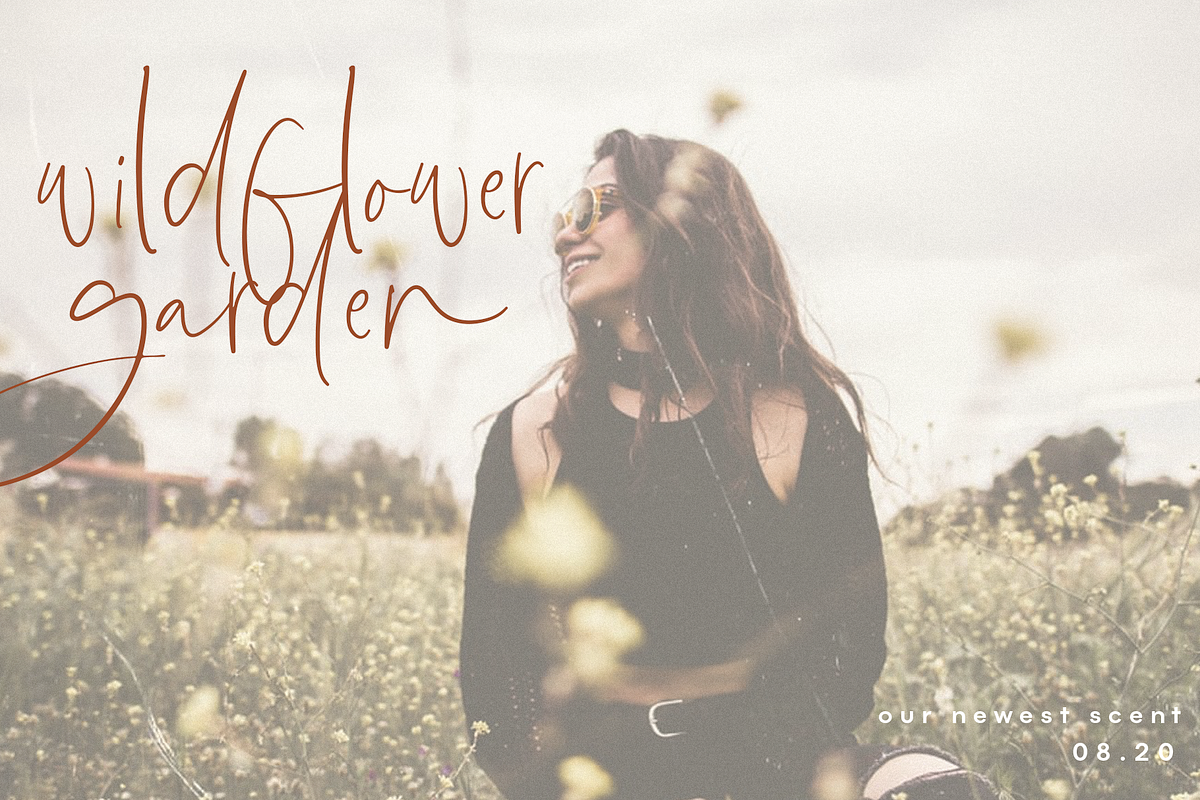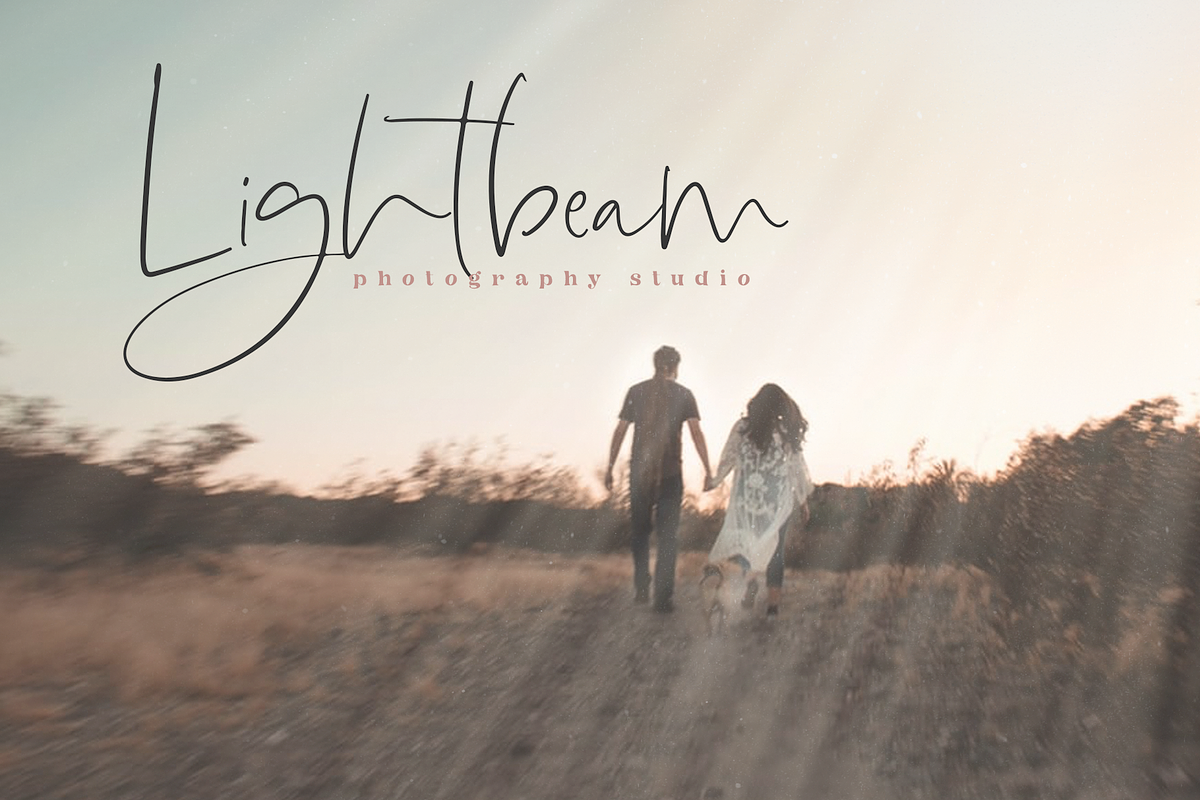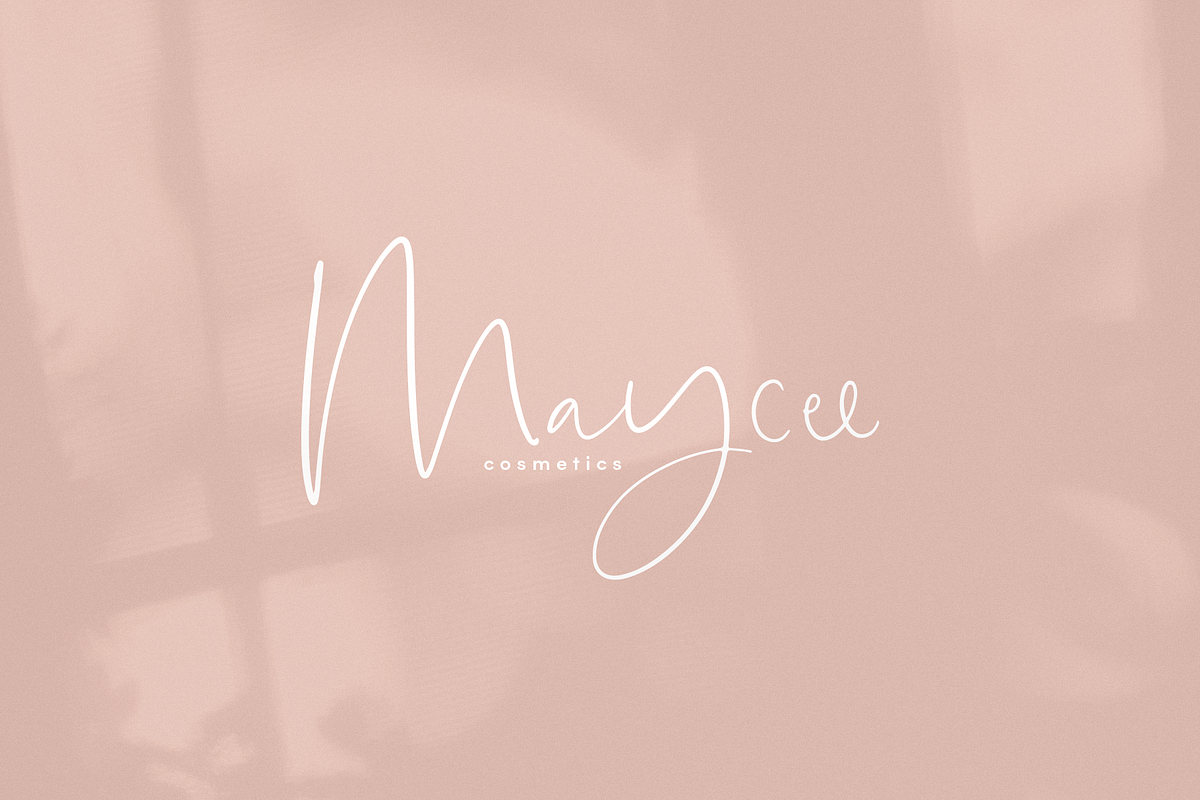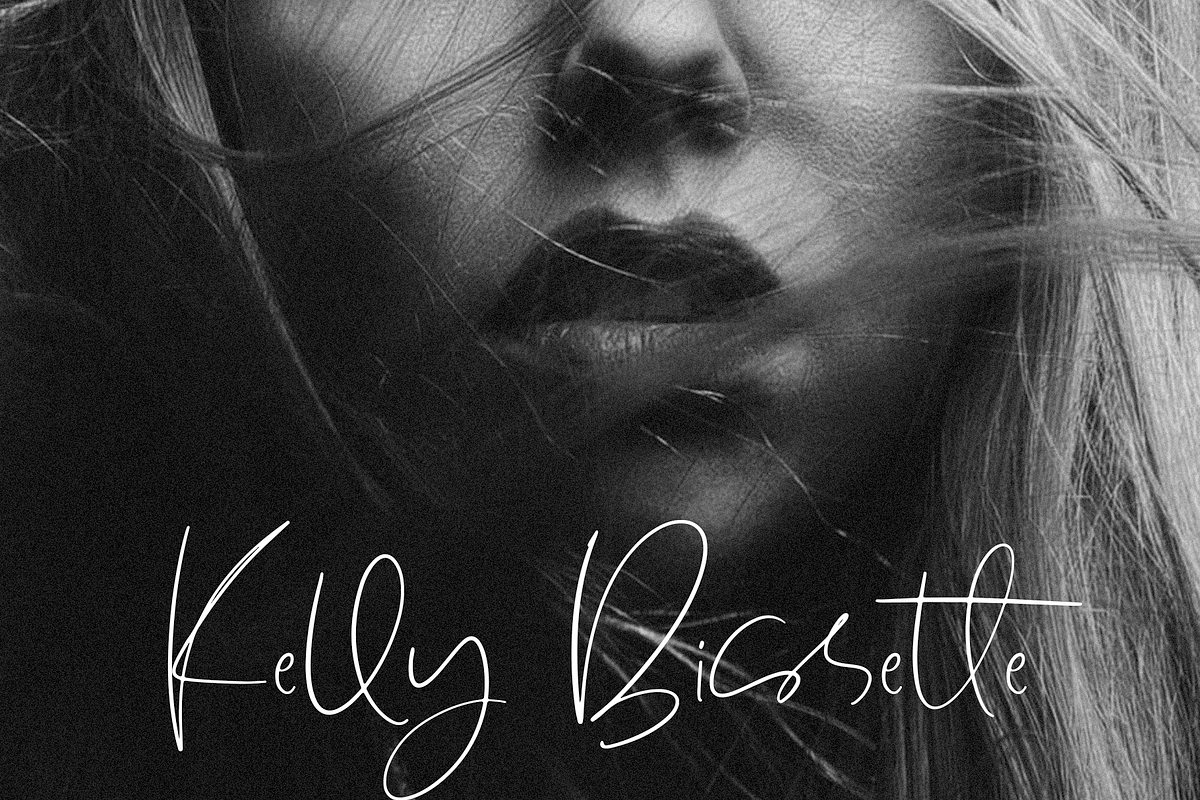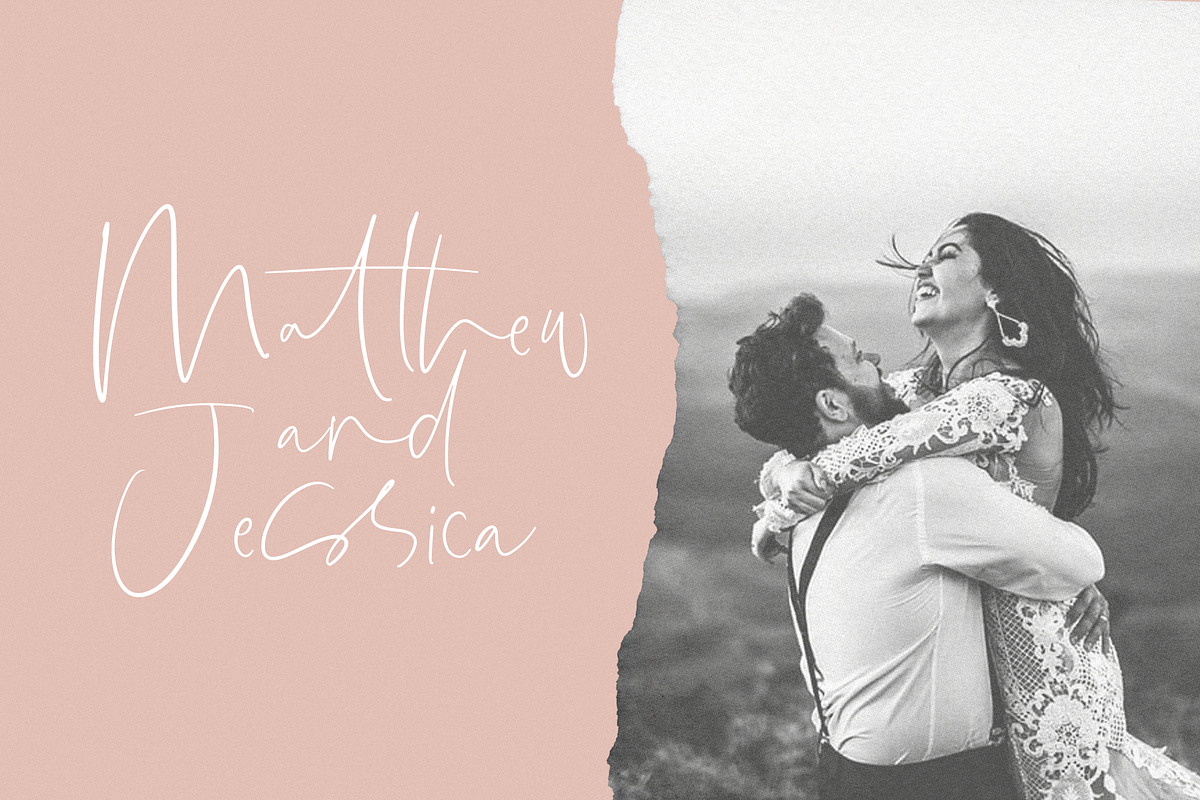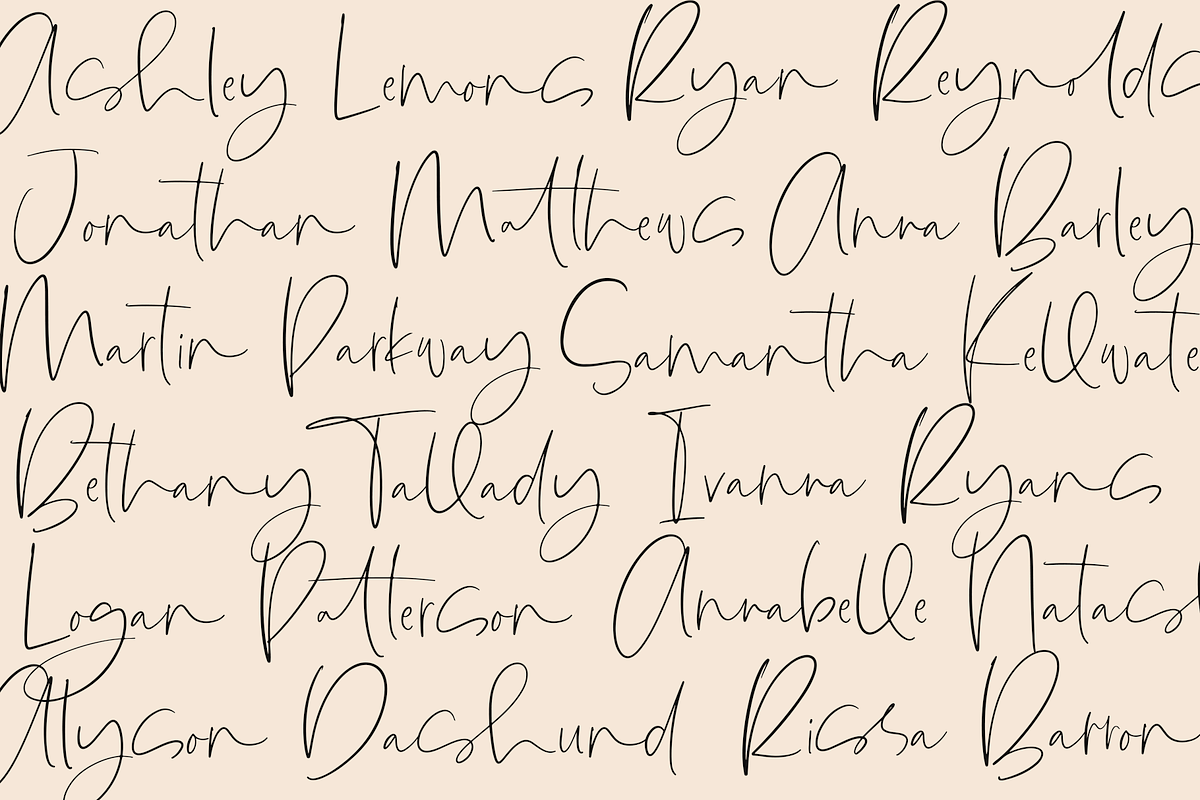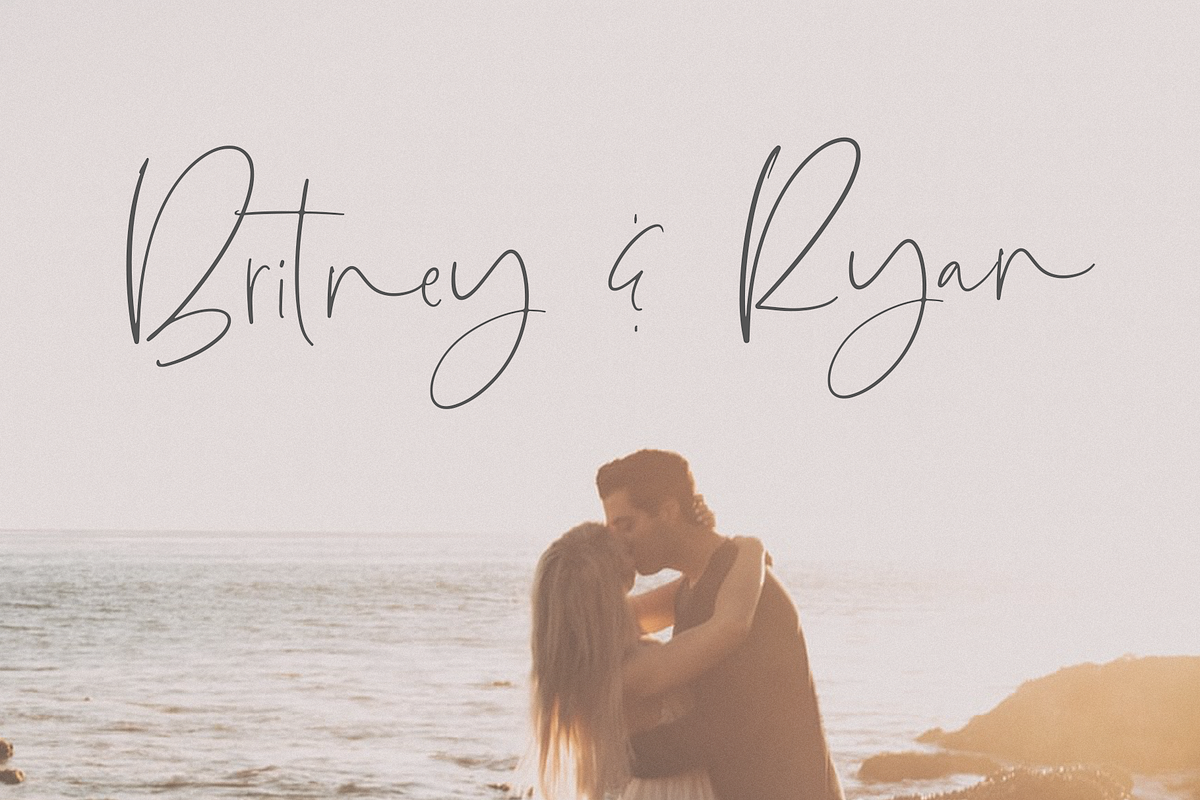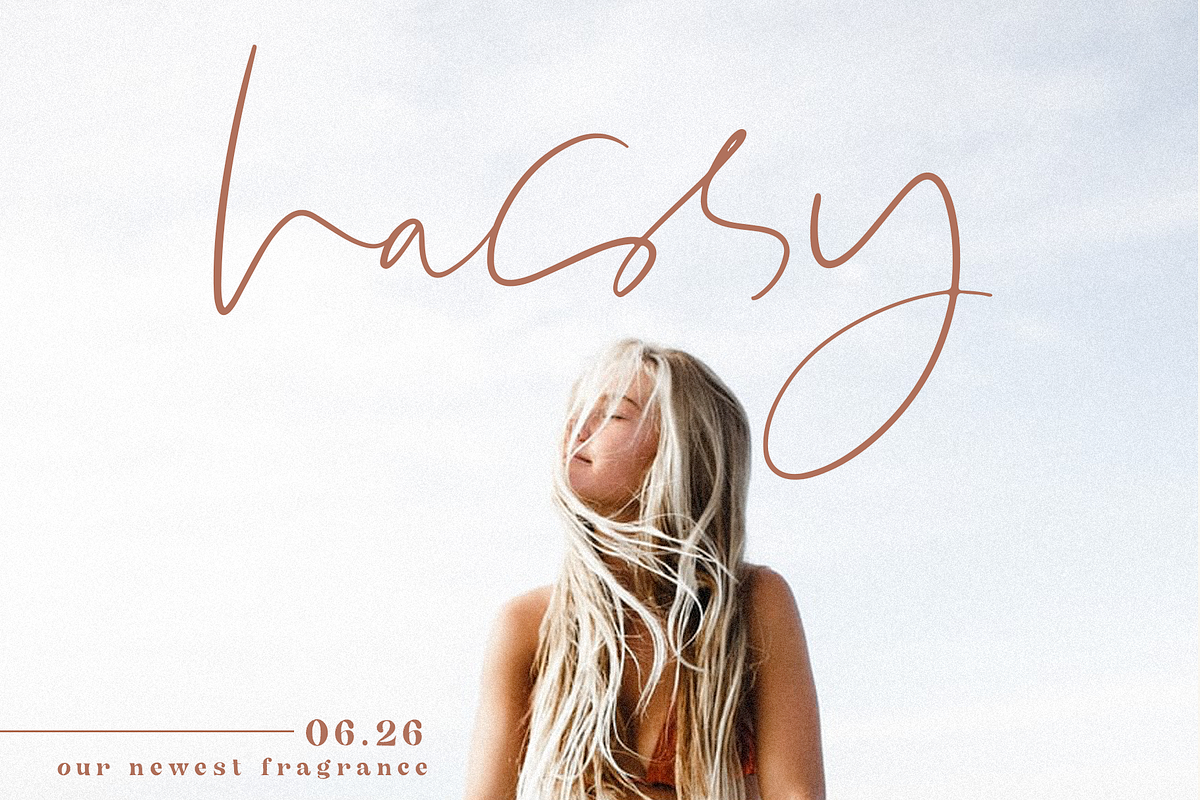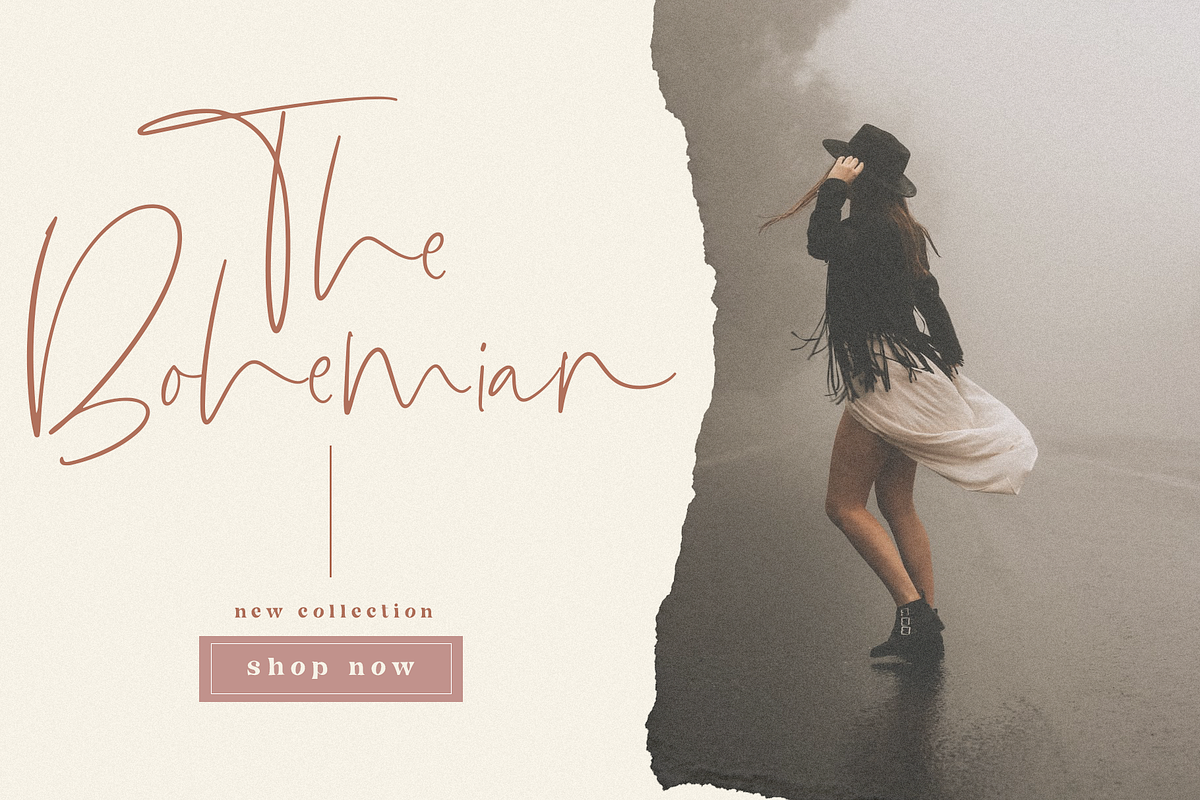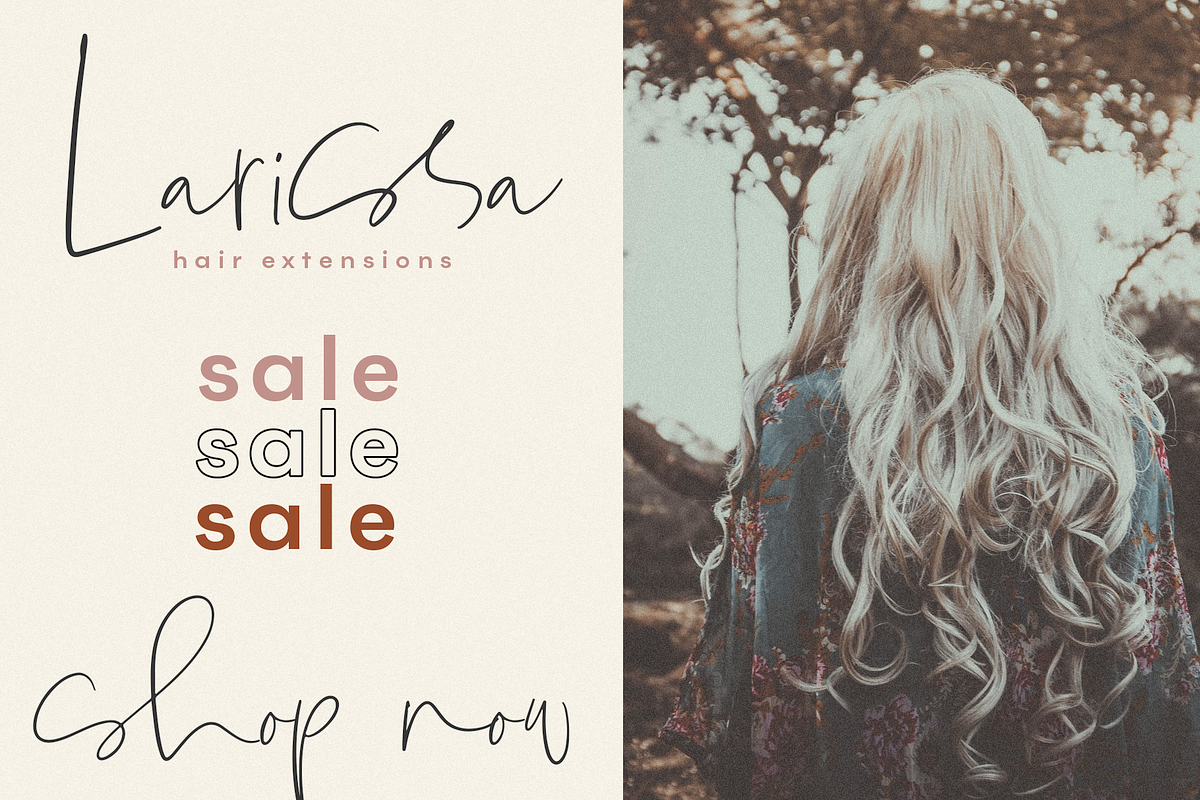
Lionness | Modern Script Font
Lionness is a carefree, handwritten script font.
This font has a modern calligraphy style and it is perfect for branding, signatures, logos, invitations, websites, blogs, packaging, business cards, and more!